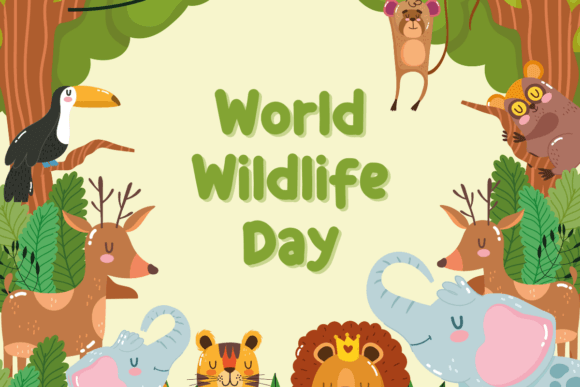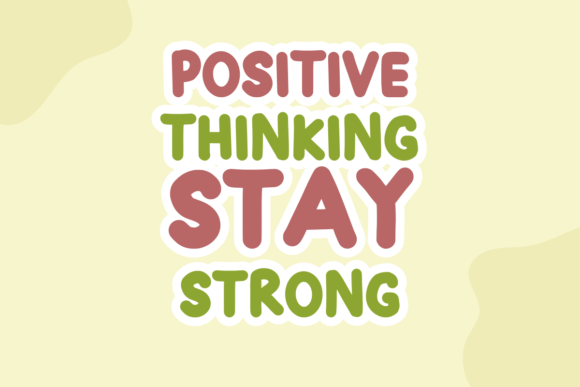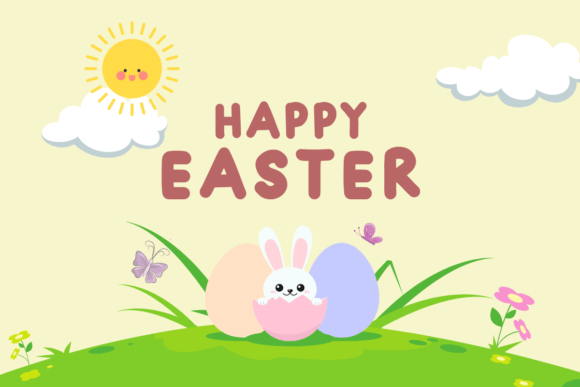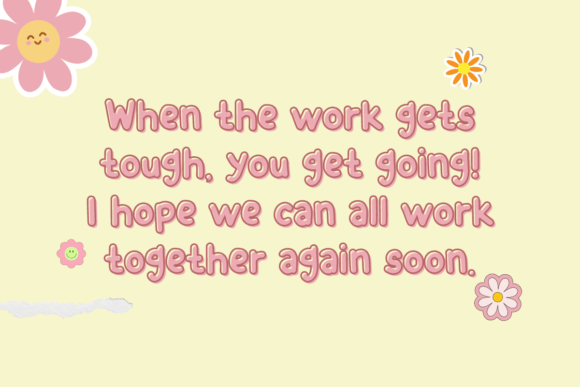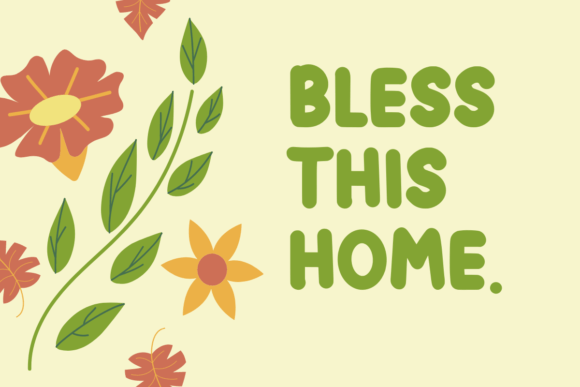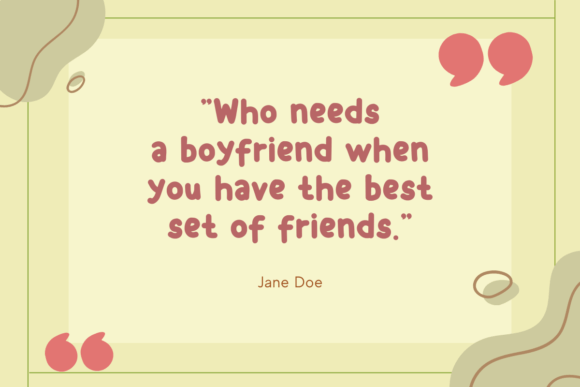
Introduction to Positive Forward Font
Have you ever stared at a blank page, searching for the perfect font to bring your creative project to life? I know I have. It’s that moment of frustration and excitement, when the right design element can make all the difference. For designers, finding a font that captures the essence of their vision can be a game-changer. That’s where the Positive Forward Font comes in – a playful display font that exudes optimism and joy.
This delightful font is more than just a pretty face; it’s a valuable design resource that can add a touch of personality to any project. With its unique style and high-quality design, it’s the perfect choice for designers looking to create something truly special. And the best part? It’s available for free download, making it an accessible addition to any creative endeavor.
Key Features of Positive Forward Font
- High-quality design for creative projects, including logos, posters, and infographics.
- Transparent background option allows for easy customization and layering in creative projects.
- Available in a range of sizes, from 12px to 72px, to accommodate various design requirements.
- High-resolution design (300 DPI) ensures crisp and clear display on various screens and printing materials.
- Perfect for forward-thinking designers looking to add a positive and modern touch to their creative project.
Honest Review: Positive Forward Font
As a designer, I’m always on the lookout for high-quality fonts that can elevate my creative projects. The Positive Forward Font caught my eye, and I decided to give it a try.
- ✨ The font is incredibly legible, even at small sizes, making it perfect for body text.
- ✨ The design is modern and sleek, with a clean aesthetic that works well for a variety of creative projects.
- ⚠️ The font doesn’t have a transparent background option, which can make it tricky to use on complex designs with layered elements.
- ⚠️ The font is only available in a limited number of weights, which may not be ideal for designers who need a wide range of options.
Overall, I’m impressed with the Positive Forward Font. While it may not be perfect, it’s a solid addition to any designer’s toolkit. The free download and high-quality design make it a great resource for creative projects.
The Positive Forward Font is a high-quality design resource that can be downloaded for free. It’s perfect for creative projects that require a modern and professional look.
The Positive Forward Font is commonly used in creative projects such as logos, business cards, and marketing materials. It’s also great for presentations and reports that require a clean and modern design.
To get the most out of the Positive Forward Font, try using it in combination with other design elements such as images and graphics. You can also experiment with different font sizes and colors to create a unique and eye-catching design.
Alternatives to Positive Forward Font
Aurora Font is a high-quality, sans-serif font suitable for creative projects that require a modern and clean look. It’s available for free download and features a transparent background, making it easy to use in various design contexts. When to use: Aurora Font is ideal for designing websites, social media graphics, and other digital content where a minimalist aesthetic is desired. Compared to Positive Forward Font, Aurora Font has a more rounded design, making it suitable for projects that require a softer look.
What makes Positive Forward Font a valuable design resource?
Positive Forward Font is a high-quality design resource that offers a unique and creative look for your projects. Its clean and modern design makes it perfect for a wide range of applications, from branding and marketing materials to digital products and websites. With its transparent background and high-quality design, Positive Forward Font is an excellent choice for designers looking to add a professional touch to their creative projects.